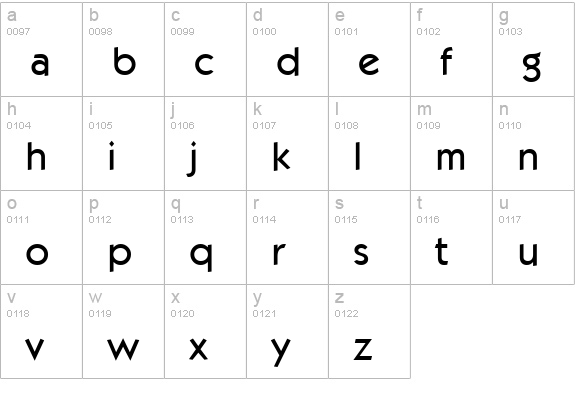
Kabob Regular is the standard, neutral variant in the Kabob typeface family \xE2\x80\x94 well suited to general body text, paragraphs, and standard typographic work.
Kabob Regular font is a versatile and stylish typeface that is perfect for adding a touch of elegance to any design project. With its clean lines and balanced proportions, this font exudes a sense of sophistication while maintaining a modern appeal. The Kabob Regular font is incredibly versatile and can be used in a variety of design applications, from branding and logo design to packaging and editorial layouts. Its timeless aesthetic makes it a great choice for both print and digital projects. One of the best things about Kabob Regular font is that it is free! That's right, you can download this amazing font for absolutely no cost at FontsMarket.com. Whether you are a professional designer or a hobbyist, having access to high-quality fonts like Kabob Regular can make a world of difference in your creative endeavors. So why wait? Enhance your design projects with the elegance and versatility of Kabob Regular font. Download it for free today at FontsMarket.com and see how it can elevate your designs to new heights.